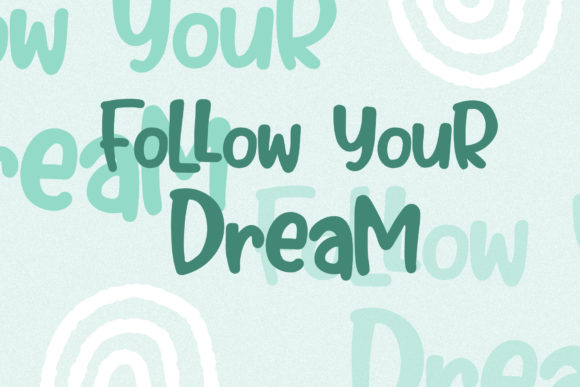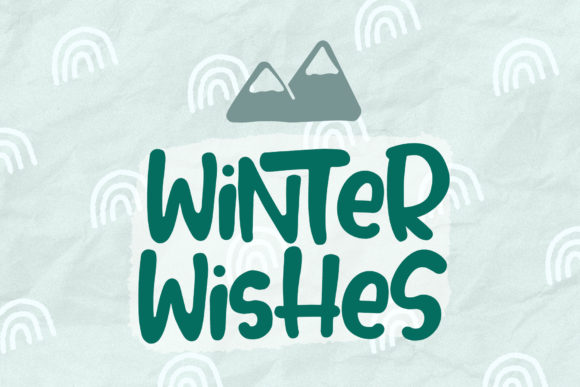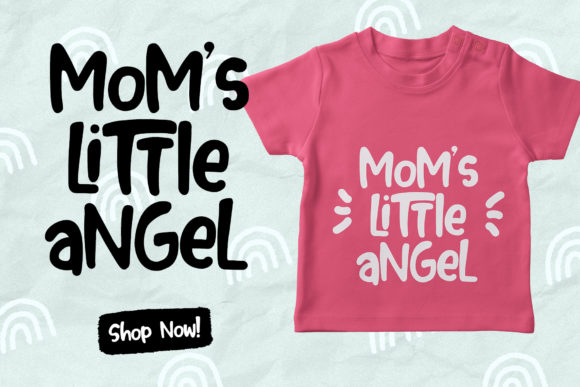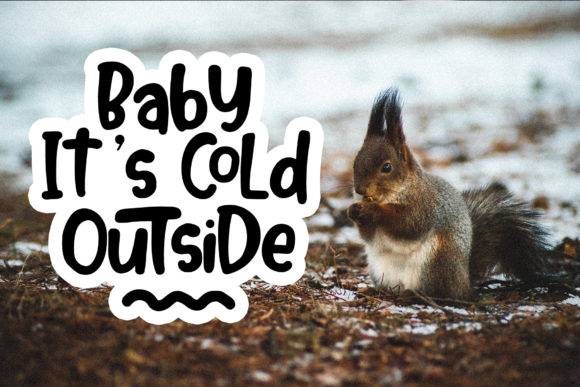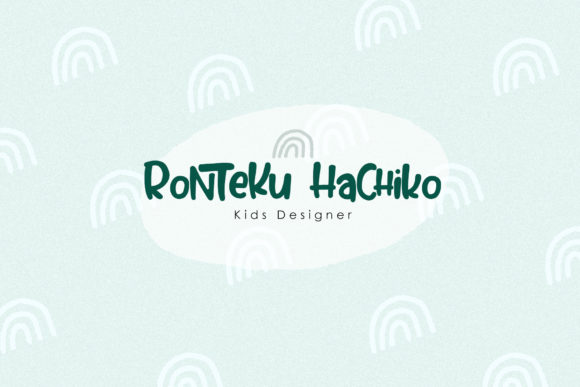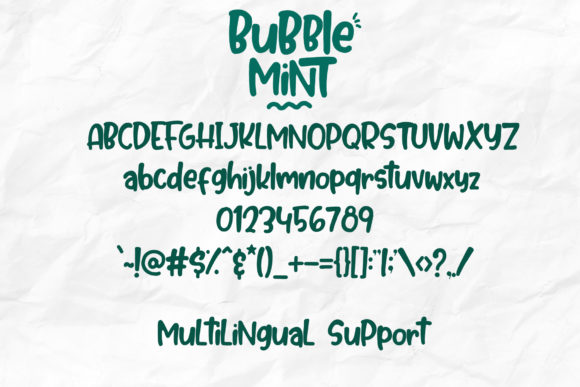
Introducing the Bubble Mint Font, a delightful display font that’s sure to add a touch of whimsy to your design. With its bubbly, playful look and feel, this font is perfect for any kind of usage, from fun and quirky to elegant and sophisticated. Whether you’re a seasoned designer or just starting out, the Bubble Mint Font is a valuable addition to your toolkit.
Bubble Mint Font Key Features
- Font Family: Bubble Mint is a sans-serif font family with a unique, rounded aesthetic.
- Size: Available in 6 weights, from Light to Extra Bold, to cater to various design needs.
- Resolution: Optimized for high-resolution displays, making it perfect for digital designs.
- Unique Characteristics: Features a distinctive bubble-like shape, giving it a friendly and approachable feel.
Bubble Mint Font Review
As a designer, I’ve had the chance to work with a wide range of fonts, and Bubble Mint is one of them. Let’s dive into what makes it tick.
- Unique character: Bubble Mint has a distinctive, playful feel that’s perfect for projects that need a bit of whimsy.
- High legibility: Despite its rounded edges, the font is surprisingly easy to read, even at smaller sizes.
- Great for titles: The font’s bold lines and rounded corners make it ideal for titles and headings.
- Not suitable for body text: While the font is legible, it can get a bit overwhelming for larger blocks of text.
- Limited font weights: Bubble Mint only comes in a few font weights, which can make it harder to achieve the desired look.
Overall impression
Bubble Mint is a solid choice for designers looking for a playful, eye-catching font. While it may not be suitable for every project, it’s perfect for titles, headings, and any other situation where you want to add a bit of flair. Just be mindful of its limitations, and you’ll be all set.
The Bubble Mint Font is ideal for creating playful, modern designs for social media graphics, blog posts, and marketing materials. It’s also great for adding a touch of whimsy to wedding invitations, party decorations, and other special occasion materials.
To get the most out of the Bubble Mint Font, experiment with different font sizes, colors, and combinations to create visually appealing designs. You can also pair the font with other playful, modern fonts to create a unique and eye-catching look.